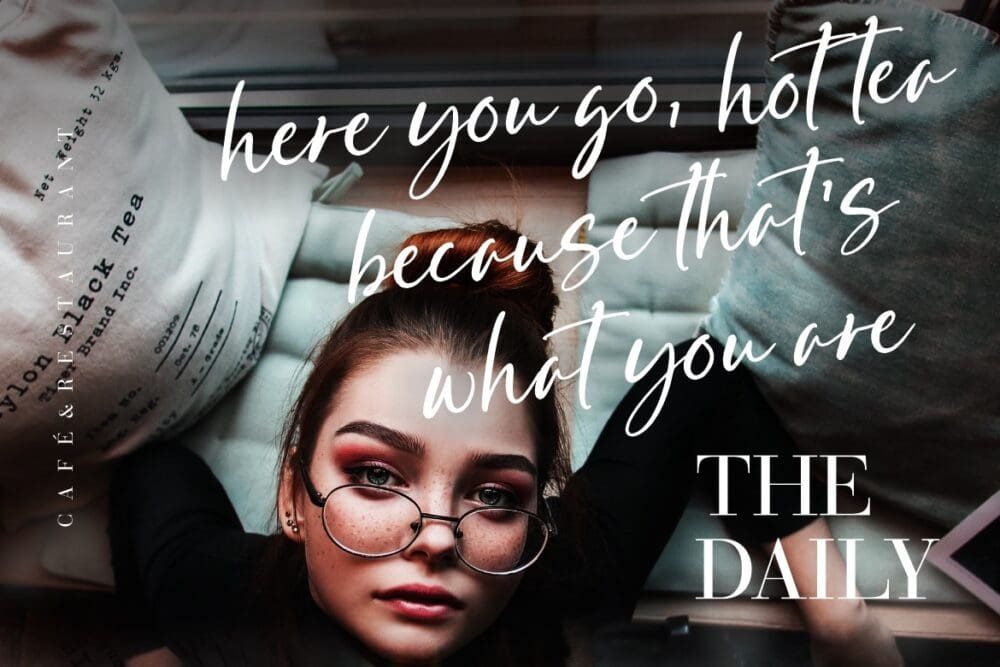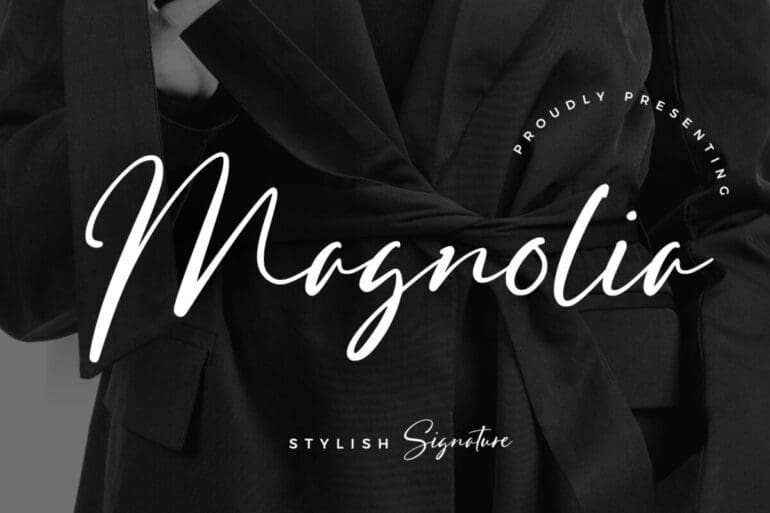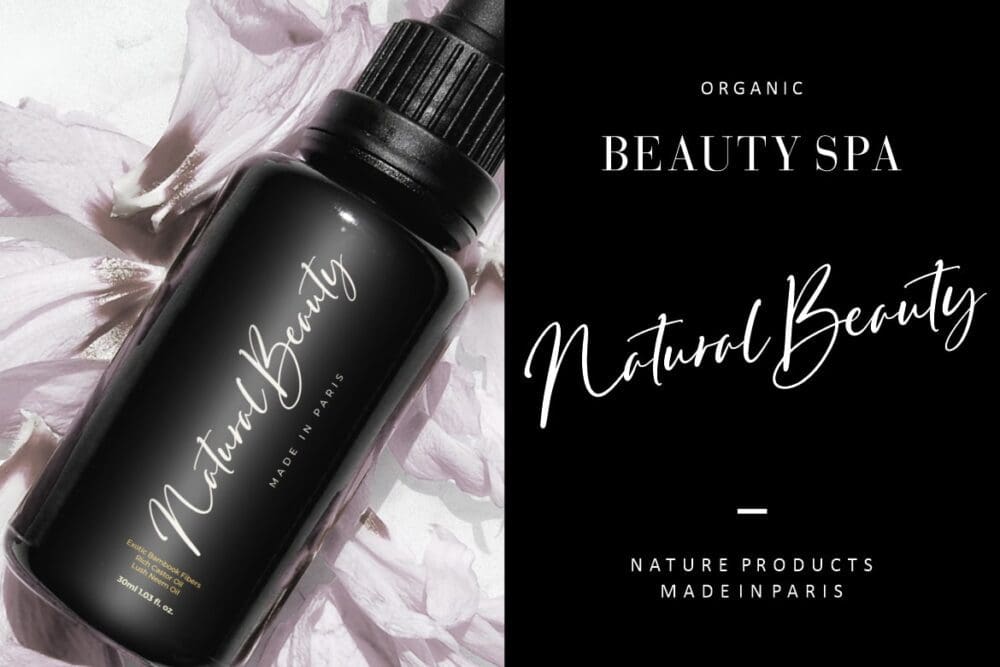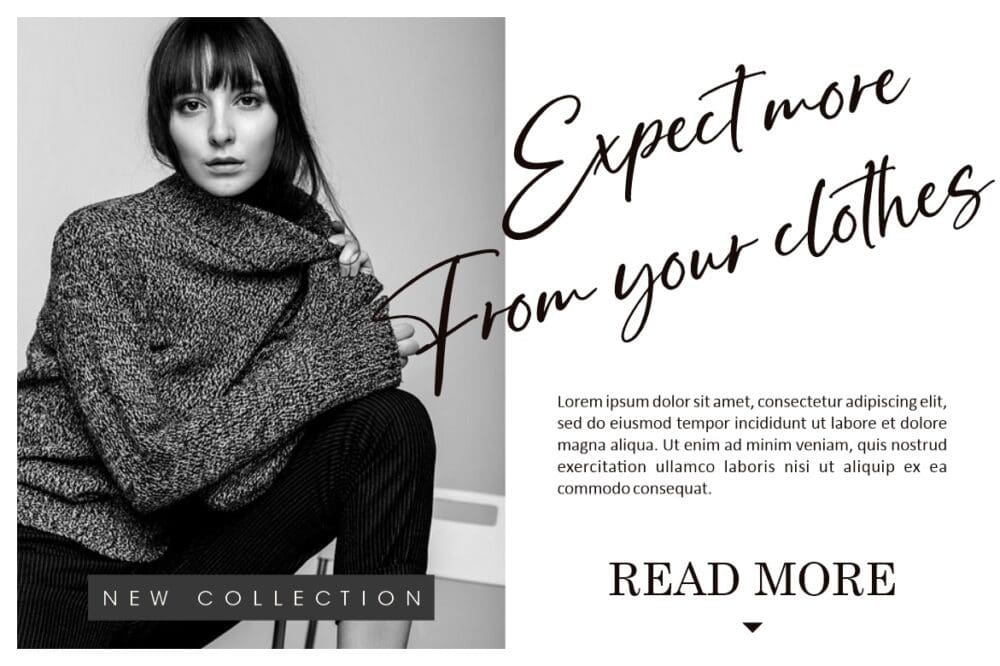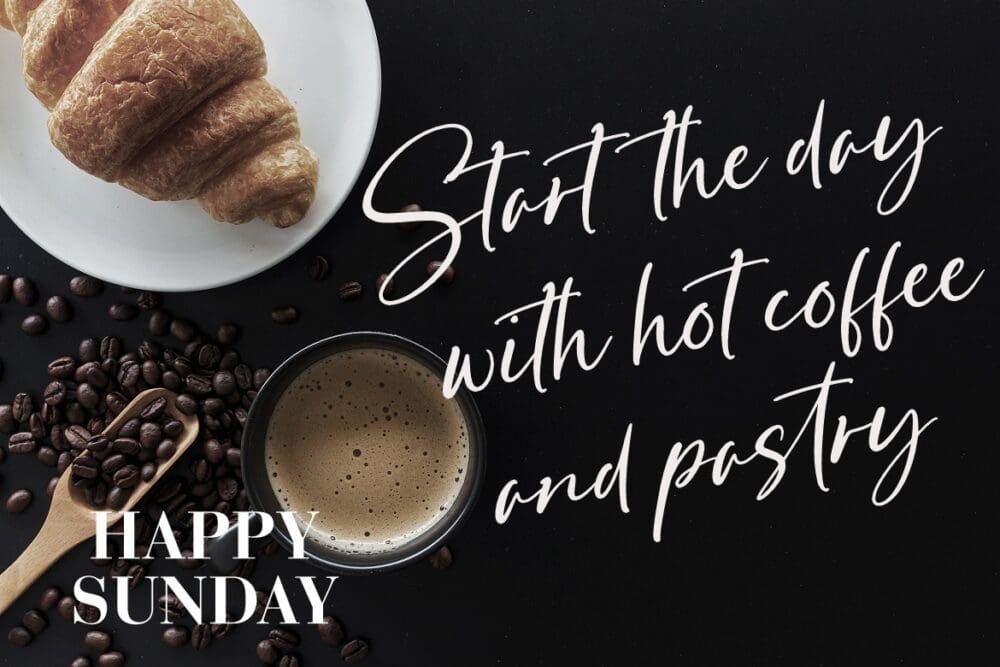
Magnolia Stylish Signature Font
Magnolia is a stylish Signature Font with sophisticated and stylish handwritten. Magnolia is perfect for social media posts, advertisements, product packaging, invitation, stationery, and any projects that need handwriting taste.